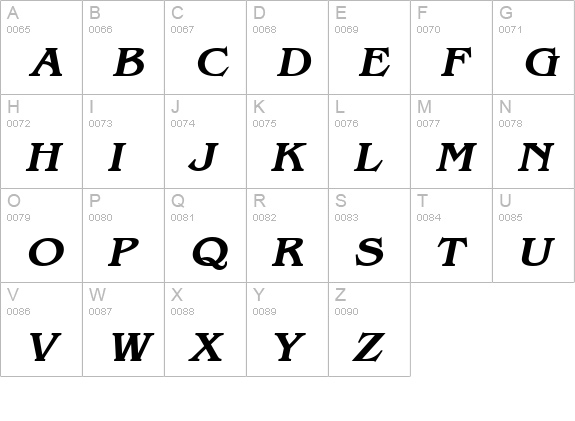
Bangle-Extended Bold Italic Font Details
Bangle-Extended Bold Italic is a strong, high-contrast, extended-width, italic variant in the Bangle typeface family \xE2\x80\x94 well suited to headlines, attention-grabbing titles, and strong calls-to-action.
The Bangle-Extended Bold Italic font exudes a sense of bold elegance and modern sophistication. Its sleek and stylish design makes it perfect for adding a touch of flair to any project or design. The thick, extended letterforms command attention, while the italicized slant adds a dynamic sense of movement and energy. This font is ideal for headlines, titles, logos, and other prominent text where a strong visual impact is desired. And the best part? Bangle-Extended Bold Italic font is available for free download at FontsMarket.com! Whether you're a designer looking to elevate your creations or a business seeking a distinctive branding solution, this font is a versatile and powerful choice. Don't miss out on the opportunity to enhance your projects with this unique and eye-catching typeface. Download Bangle-Extended Bold Italic font today and unleash your creativity!